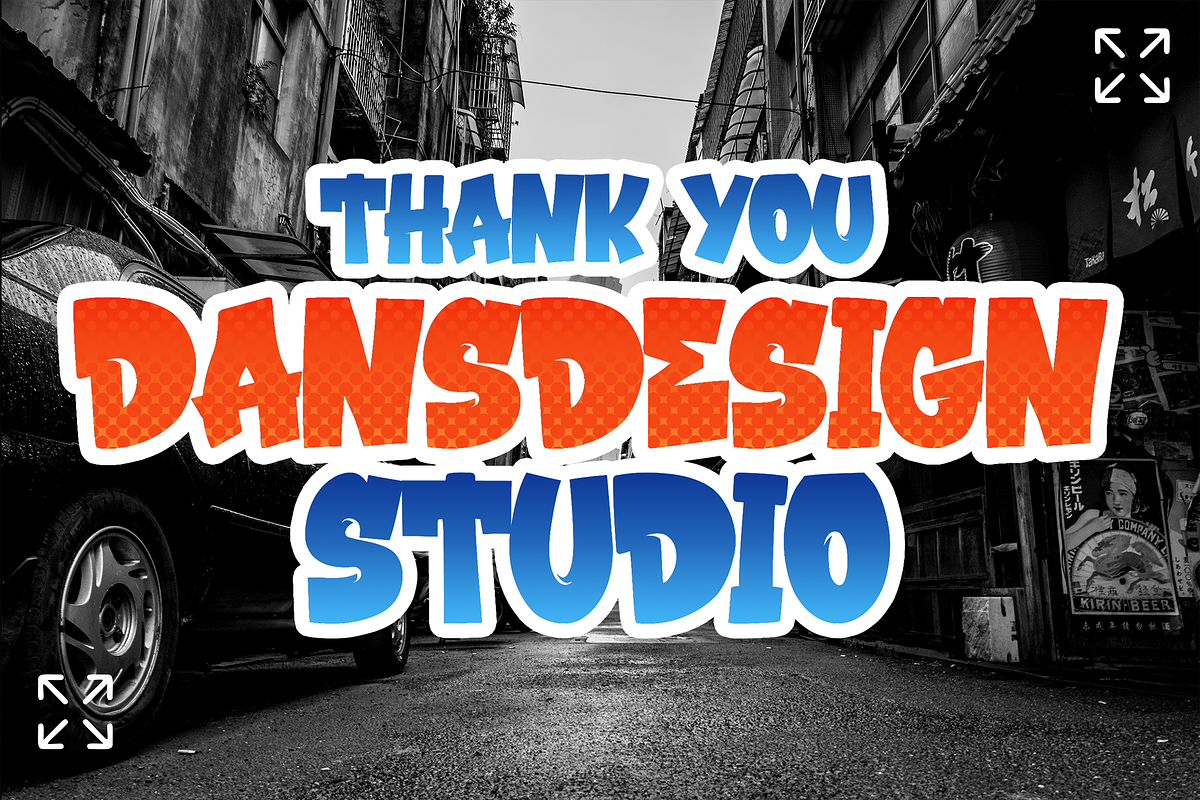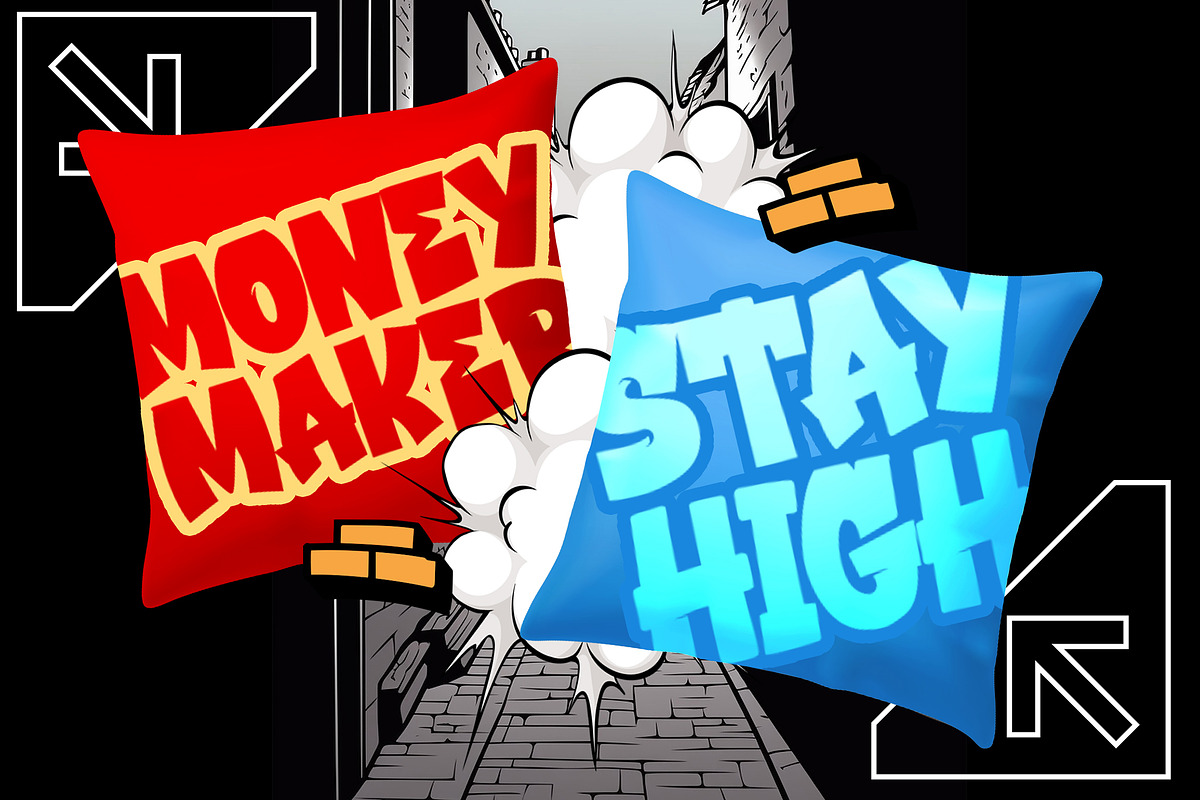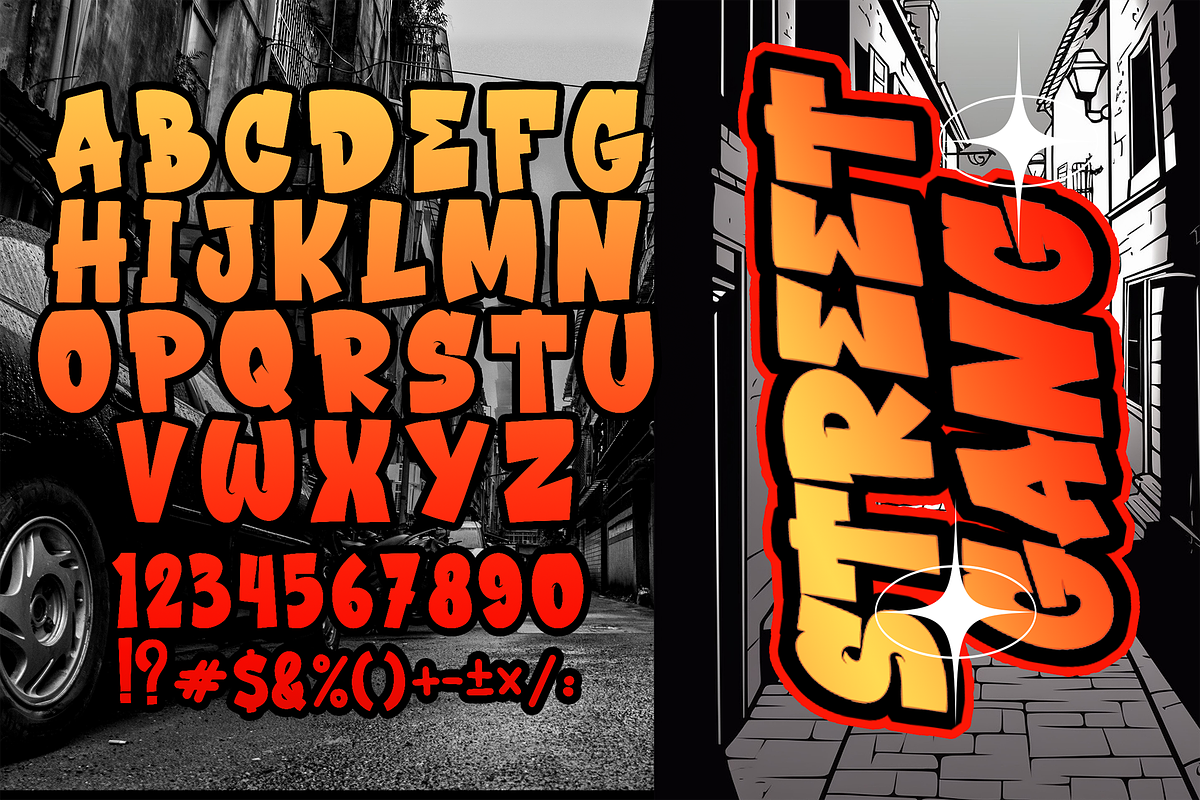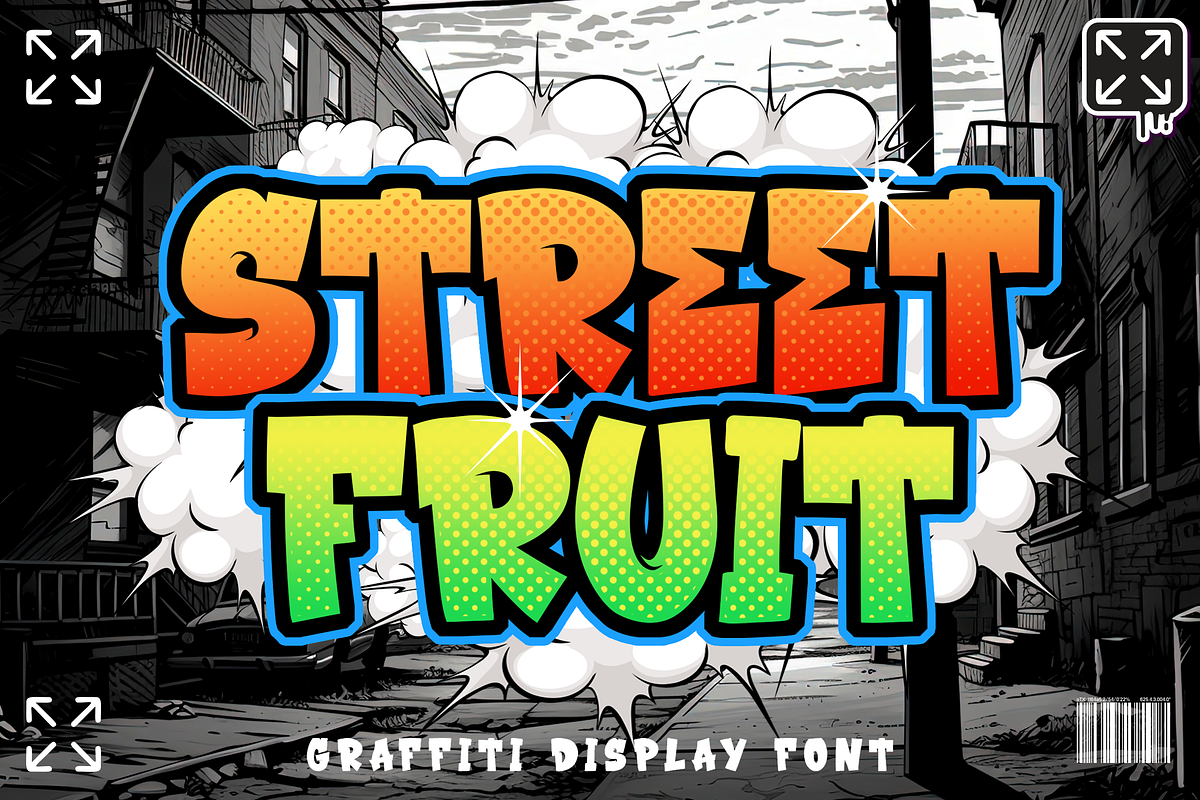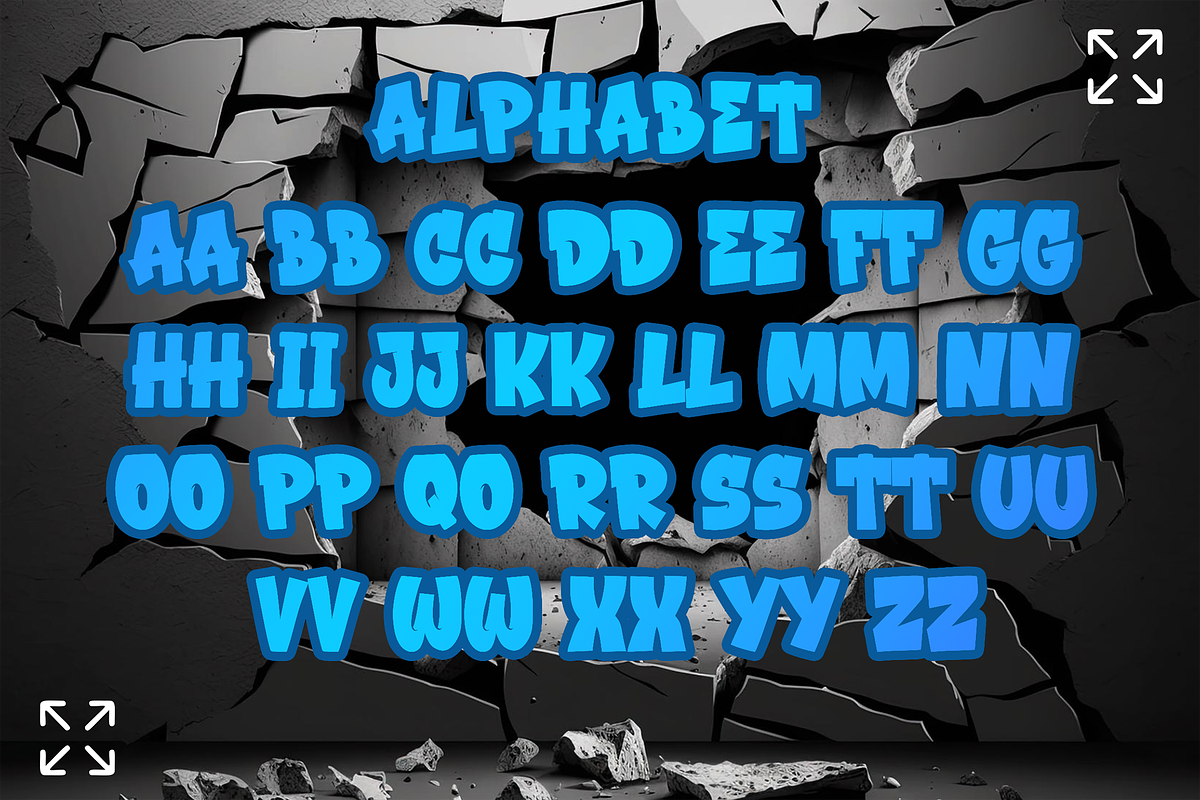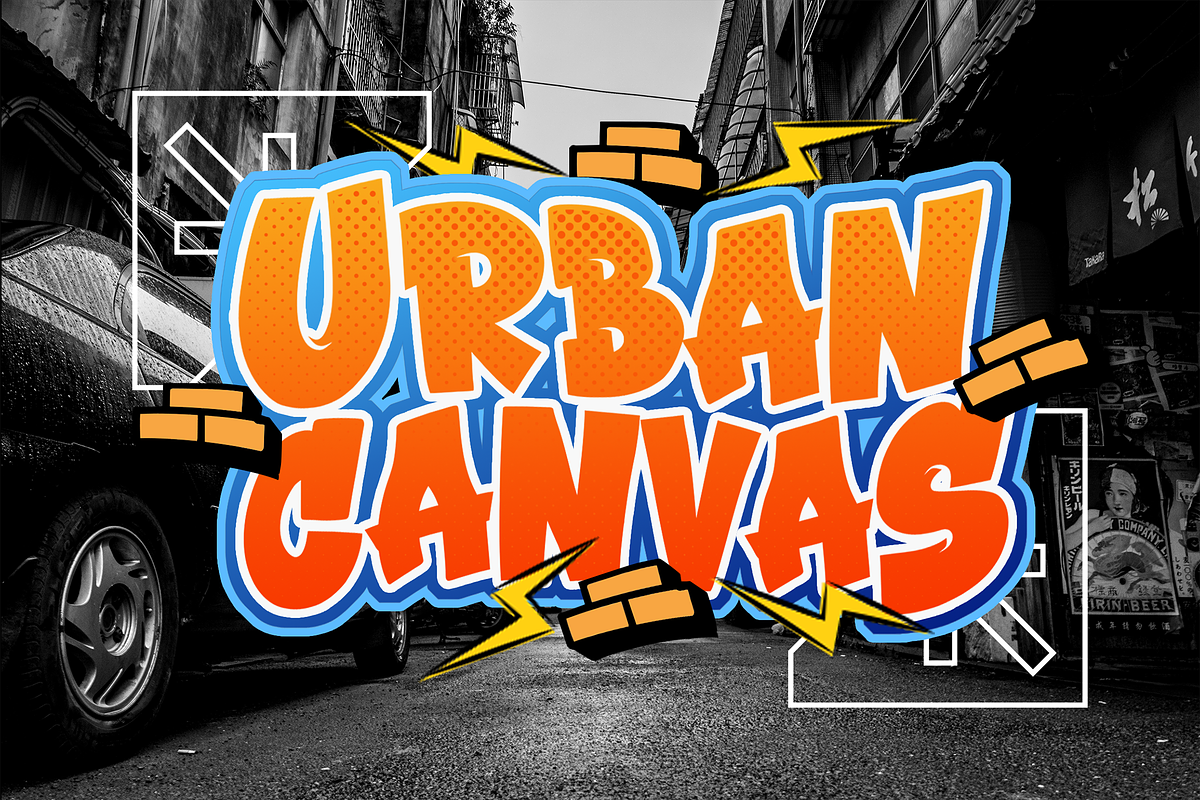
STREET FRUIT Modern Display Graffiti
STREET FRUIT Modern Display Graffiti Font
STREET FRUIT Modern Display Graffiti Font a distinct, highly detailed. GRAFFITI Display Font. It would make a great choice for exquisite retro-urban designs, business branding, logos, Apparel designs, and more.